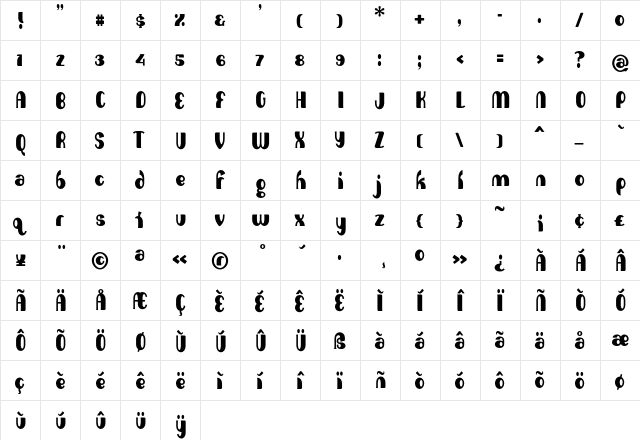
Absolution Regular
Design Context for Absolution Typeface
Absolution is a composed and adaptable typeface that performs quietly and consistently across a wide range of design contexts.
Pro Tip: Pair Absolution with a font of contrasting weight or personality to build a more expressive typographic hierarchy.